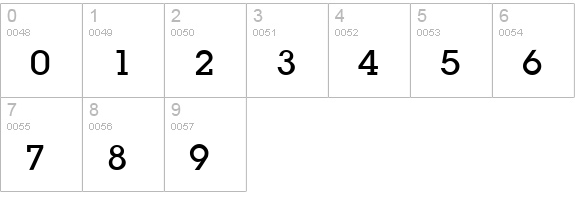
Lapland Demibold is a sub-bold, structured variant in the Lapland typeface family \xE2\x80\x94 well suited to sub-headlines and emphasised passages.
Lapland Demibold is a captivating and versatile font that exudes an air of sophistication and modernity. With its bold and impactful design, it commands attention and stands out in any context, making it perfect for headlines, logos, and branding projects. This font boasts a unique blend of sharp edges and smooth curves, resulting in a harmonious balance that appeals to both traditional and contemporary tastes. Its sturdy letterforms convey strength and confidence, while the subtle details and elegant proportions add a touch of refinement. Lapland Demibold is incredibly versatile, adapting flawlessly to various design needs. Its legibility remains intact even at smaller sizes, making it ideal for body text in magazines, books, or websites. Whether you're designing a website, creating a poster, or crafting a captivating social media post, this font will effortlessly enhance your creations. One of the most remarkable aspects of Lapland Demibold is that it is freely available to download at FontsMarket.com. This means that you can access this high-quality font without any cost, making it accessible to designers of all levels. The availability of Lapland Demibold for free ensures that creativity knows no bounds, allowing designers to experiment and innovate without any limitations. So whether you're a professional designer looking for a reliable and eye-catching font or an aspiring creative seeking to make a bold statement, Lapland Demibold is the perfect choice. Its captivating design, versatility, and the fact that it is freely available make it a valuable addition to any designer's toolkit. Download Lapland Demibold today from FontsMarket.com and unlock a world of possibilities for your next design project.